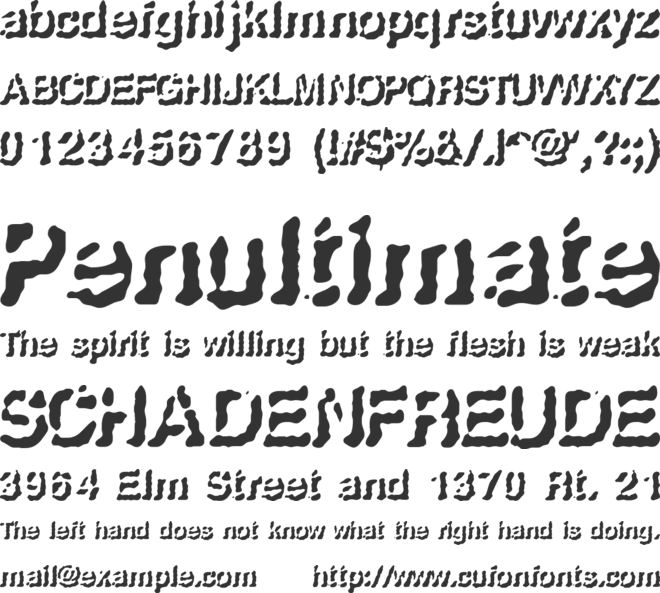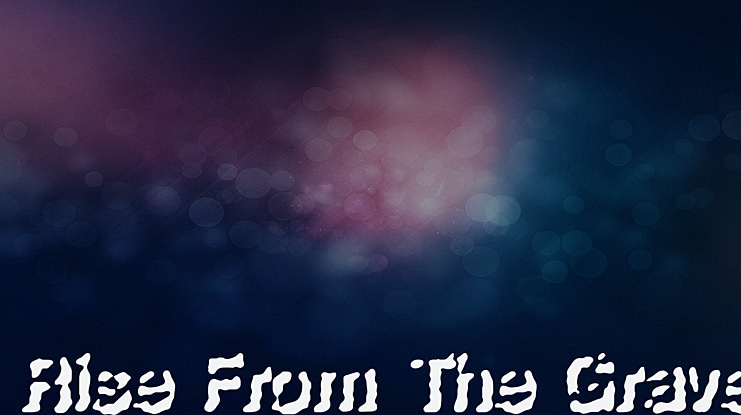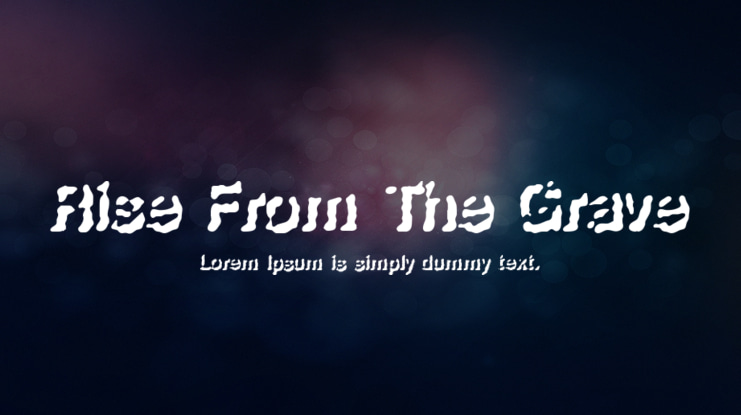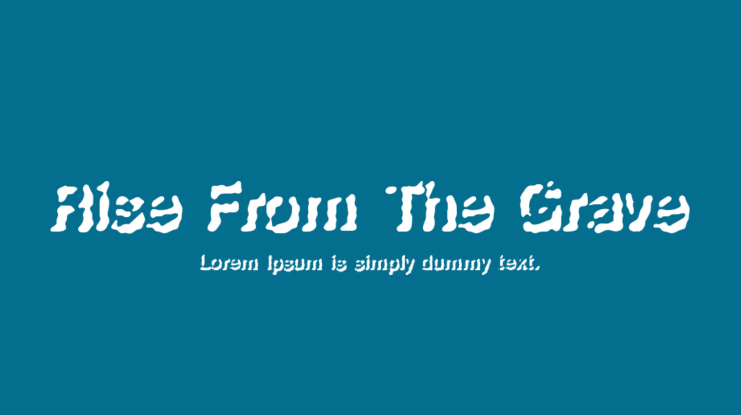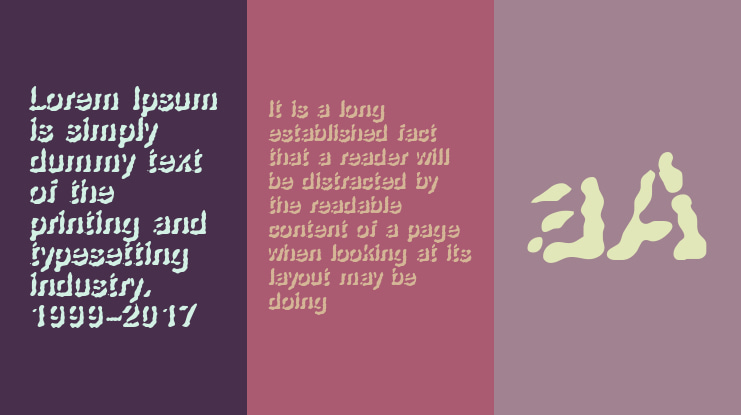
Rise From The Grave Font
Guillaume-Ulrich Chifflot
First font officially released by N9, Rise was the result of having fun with the bluring tools of Photoshop. Surprisingly, it turned out has really legible, and people liked it. So I didn't throw it and it was even used in a French advertising campaign. It was named after the eponymous record from Phuture (the R&S pressing !) that I was listening a lot in those times (Ooh, quite a long time ago, now!)
It is a very complete font, featuring the full set of accents and diacritics.